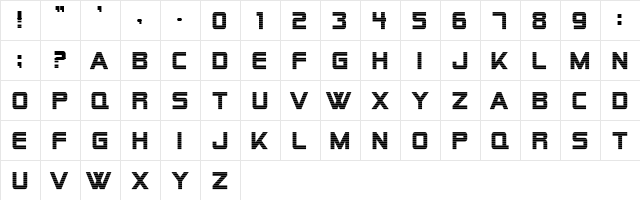
Alien Encounters Bold
Design Context for Alien Encounters Typeface
Alien Encounters is a composed and adaptable typeface that performs quietly and consistently across a wide range of design contexts. The heavy weight commands attention and anchors typographic hierarchies.